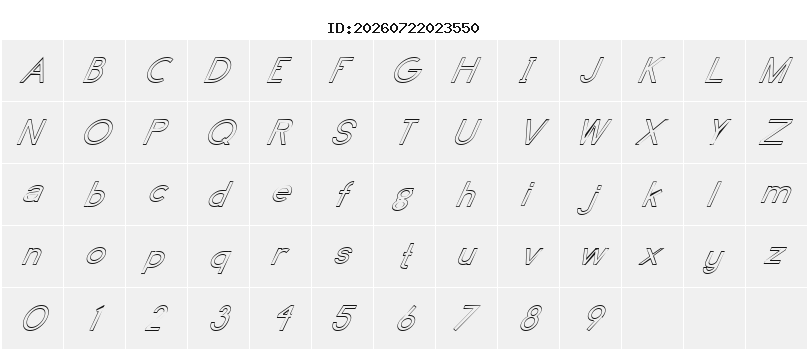
• Font Name: FZ BASIC 4 HOLLOW ITALIC
About FZ BASIC 4 HOLLOW ITALIC.ttf
FZ BASIC 4 HOLLOW ITALIC.ttf is a modern, elegant sans-serif font designed for ultimate readability and visual harmony. Perfect for branding, headlines, web design, and print materials.